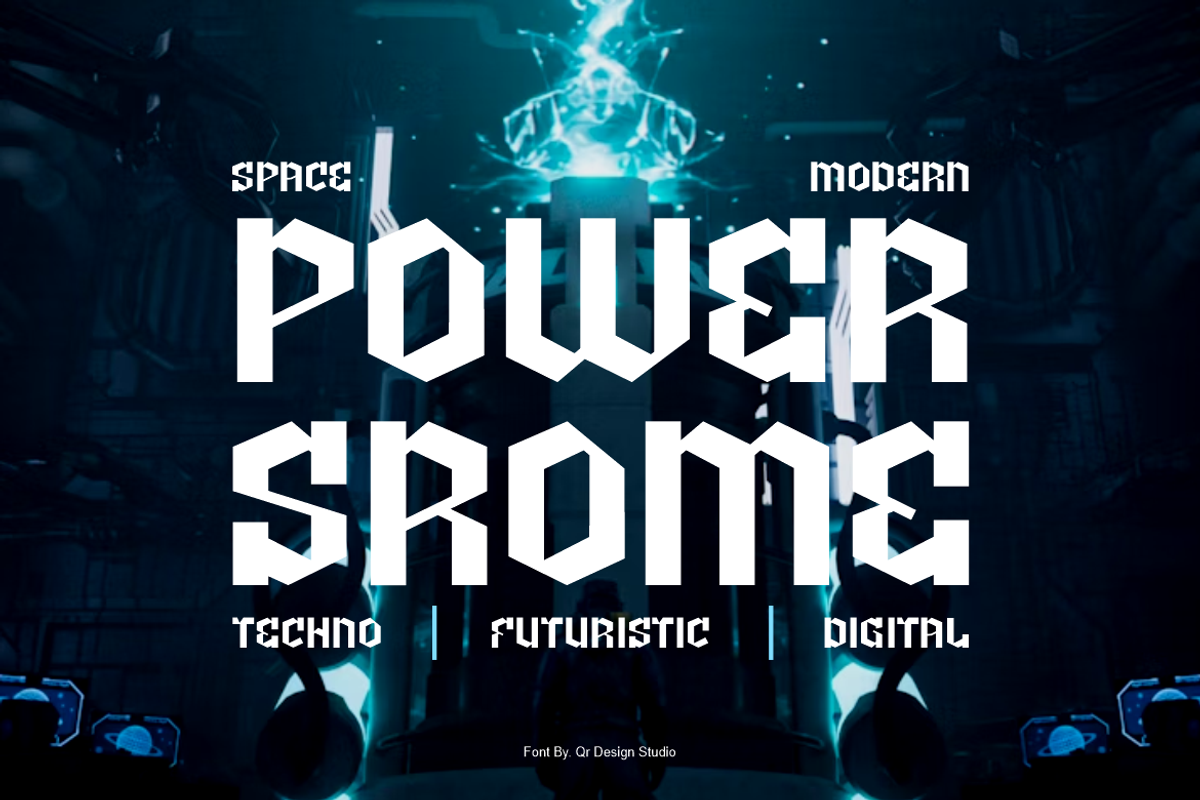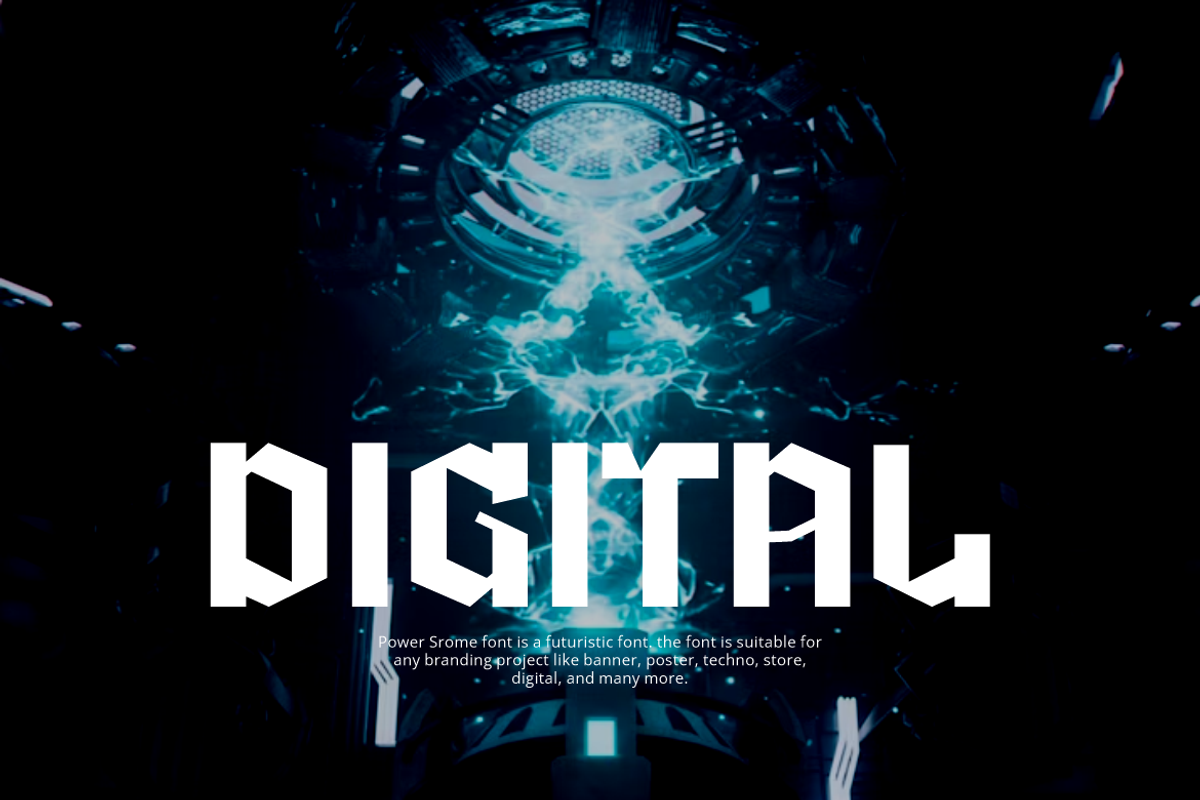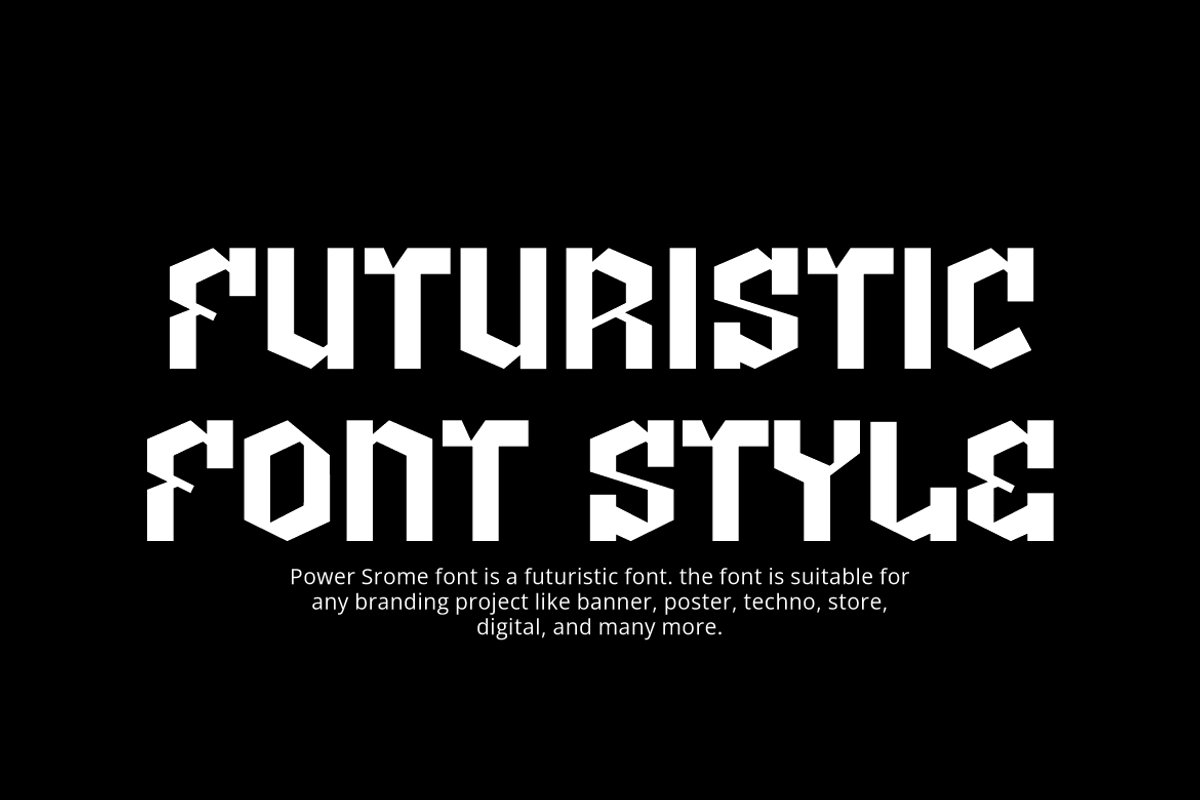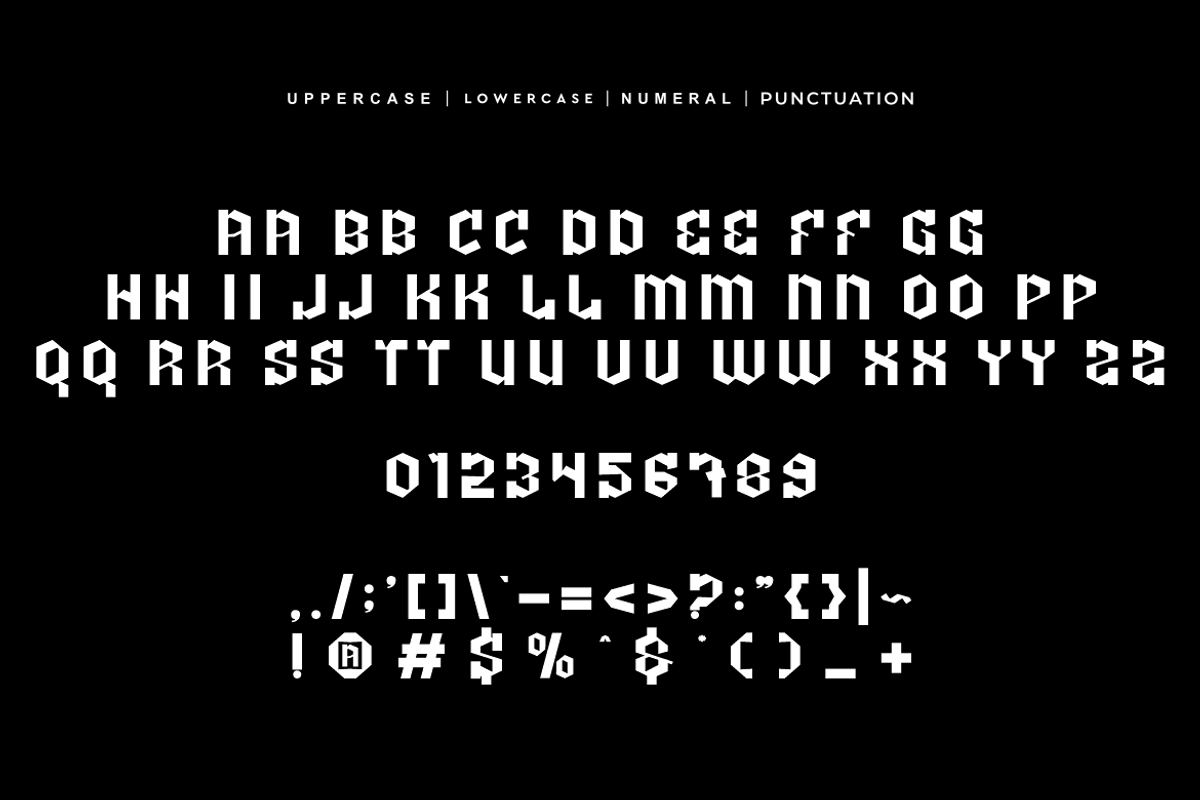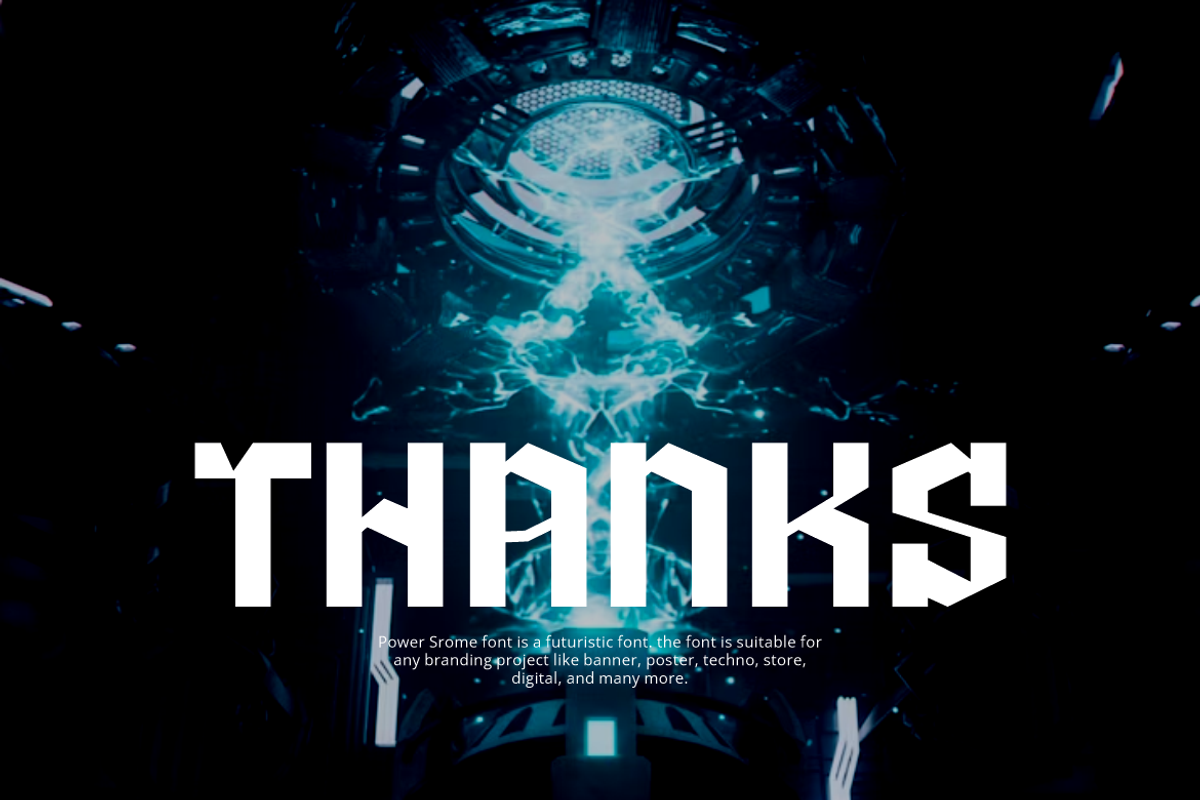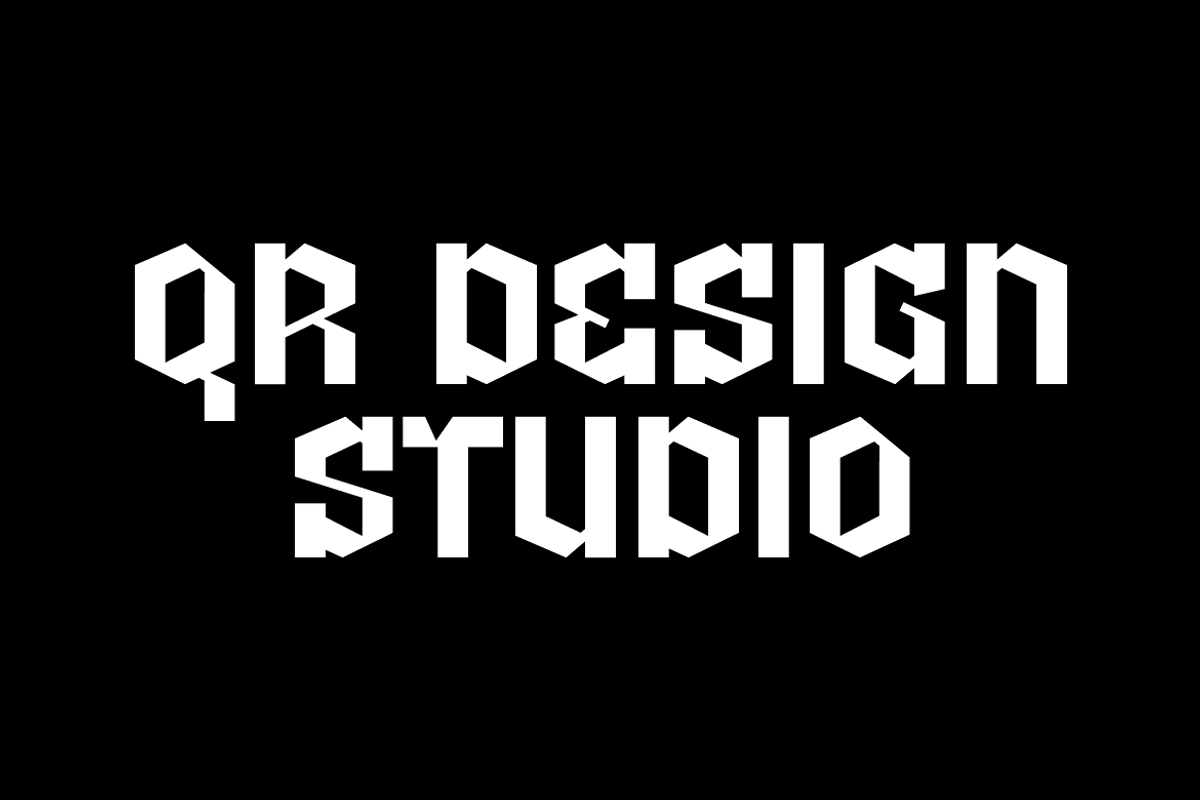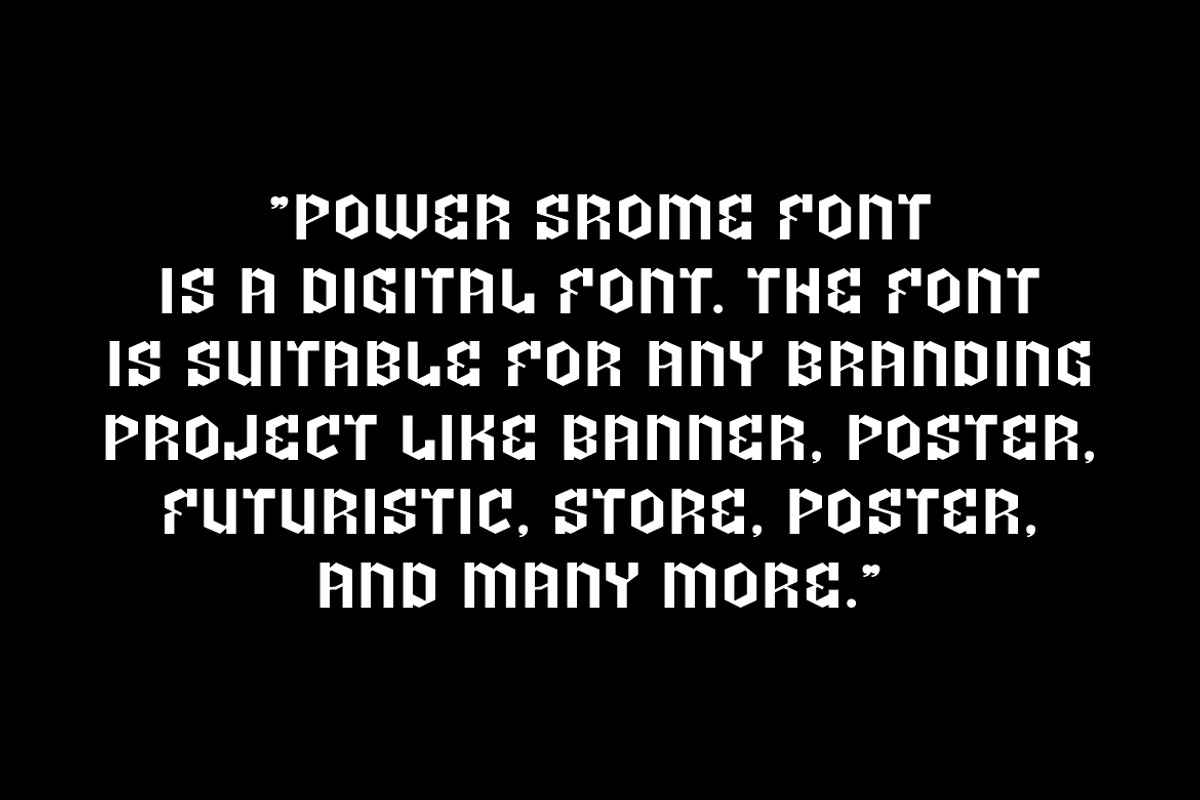
Power Srome - Futuristic Font
Power Srome Font is a tech and authentic display font. The font is suitable for any branding project like poster, logo, digital, and many more. Outstanding in a wide range of contexts.